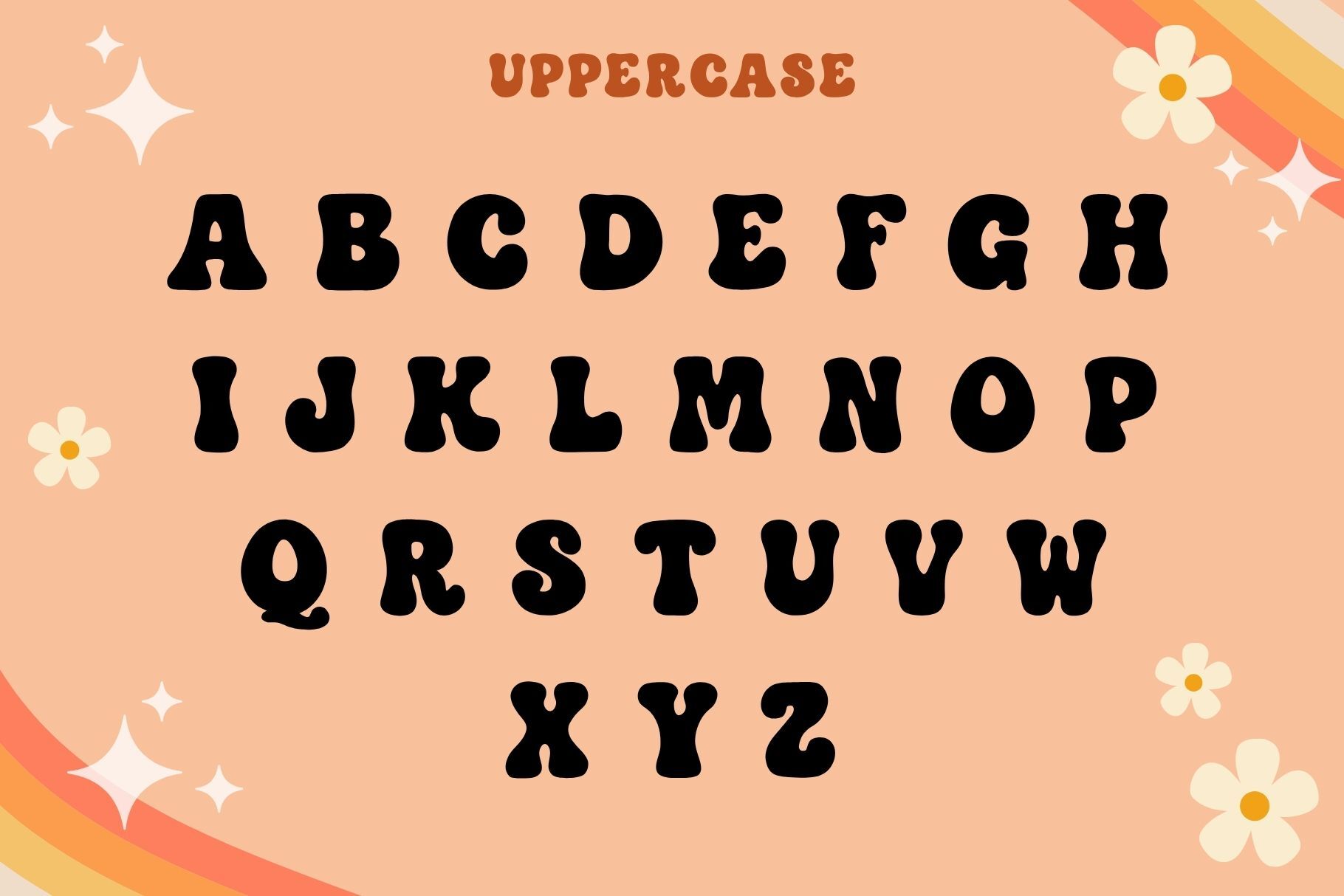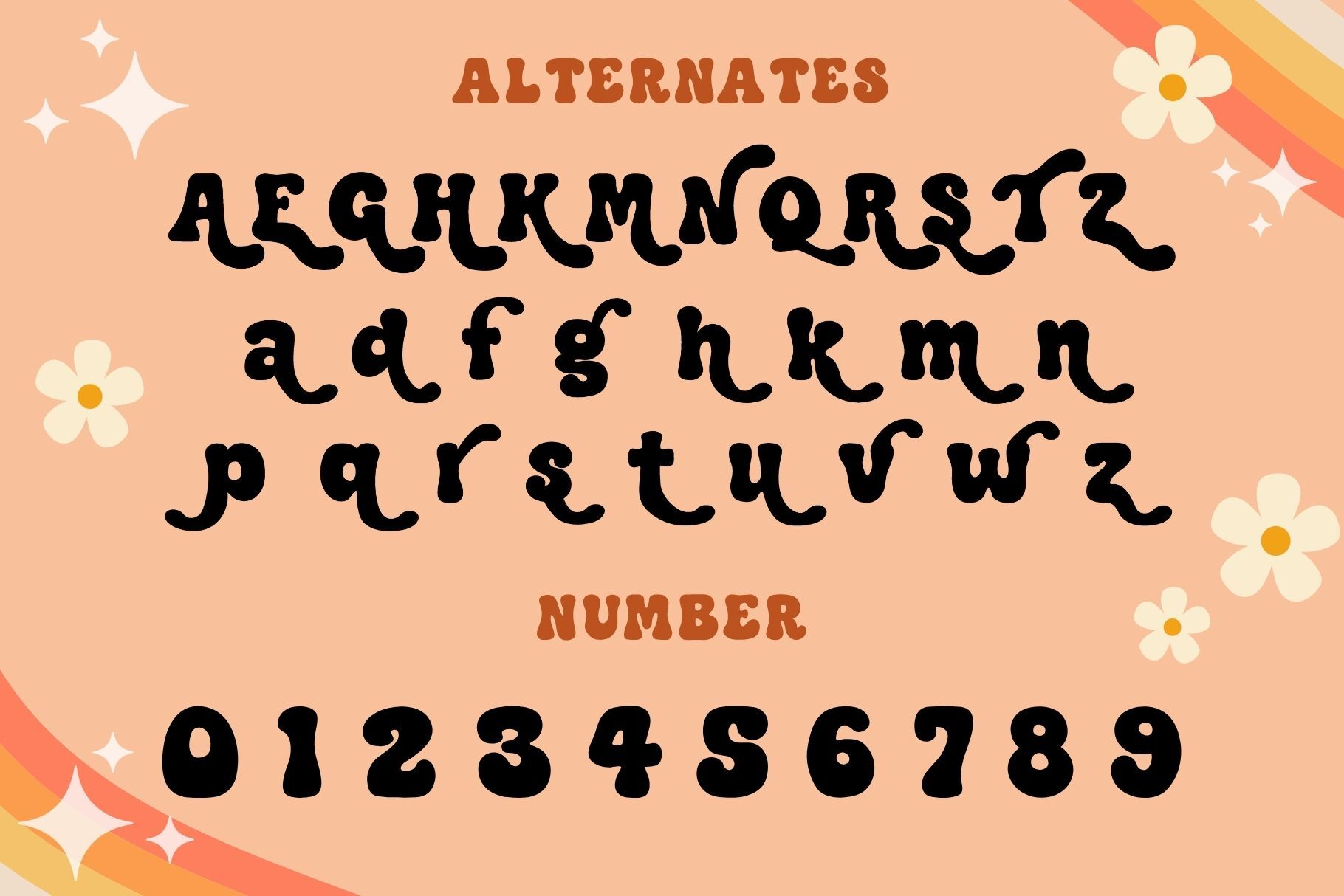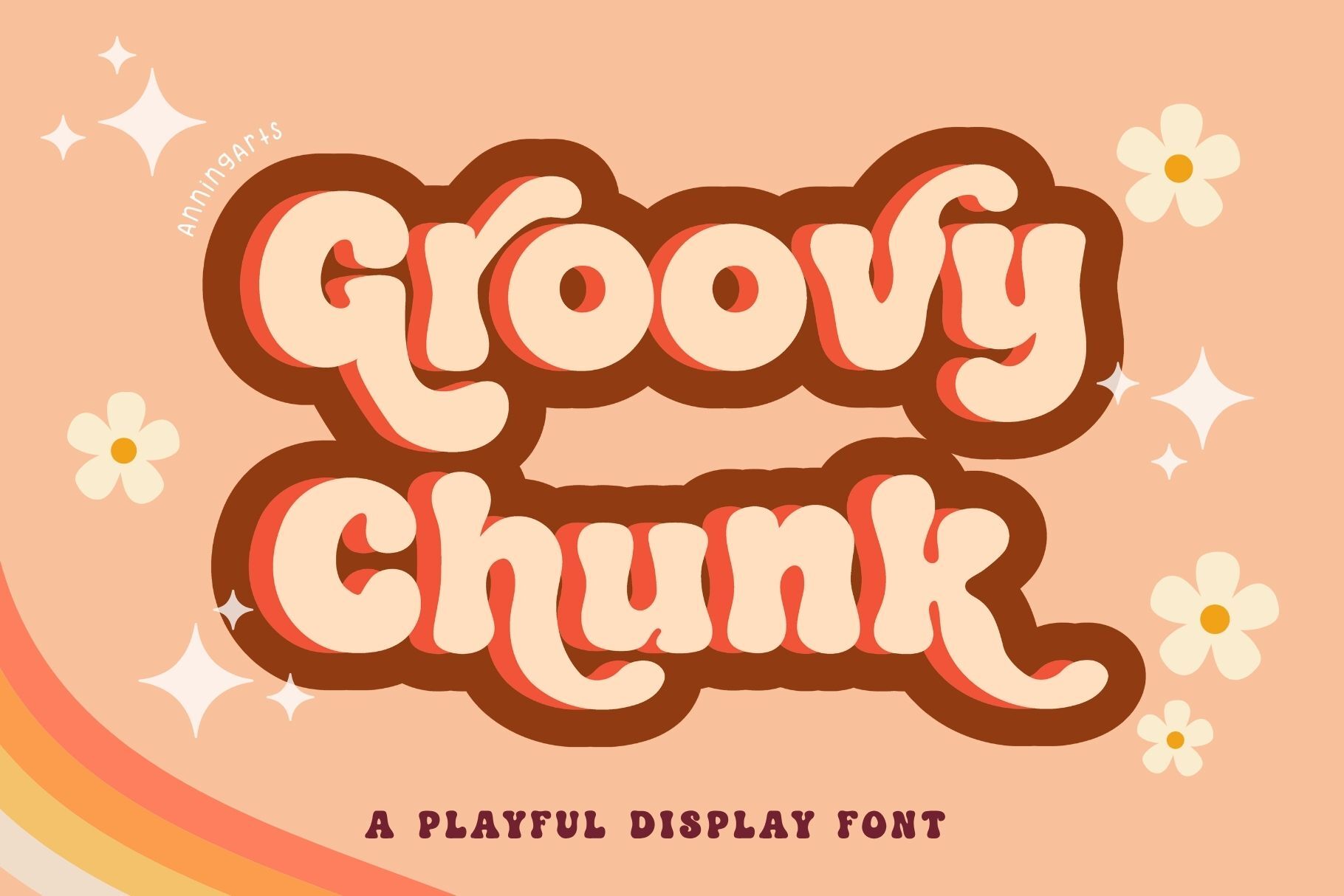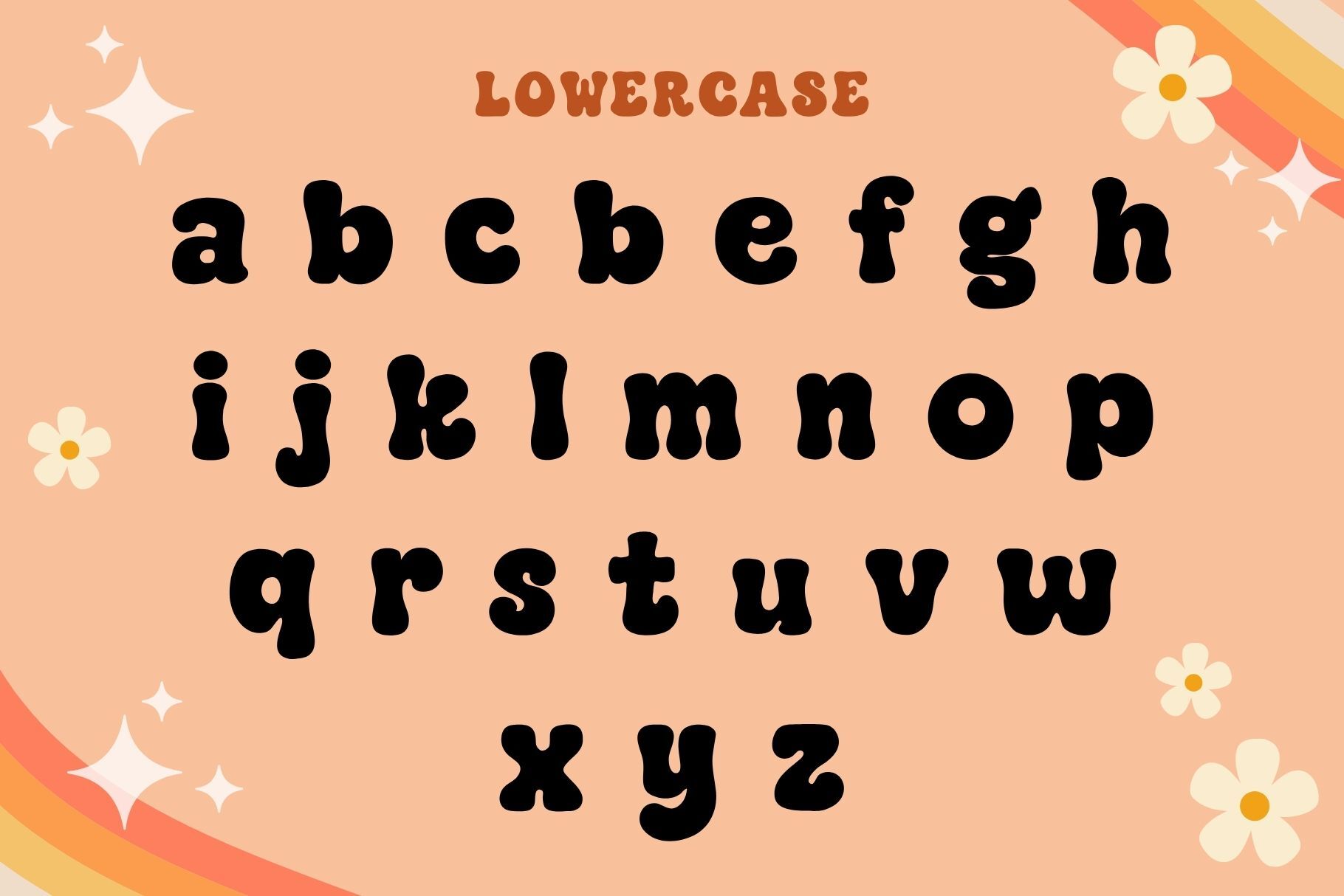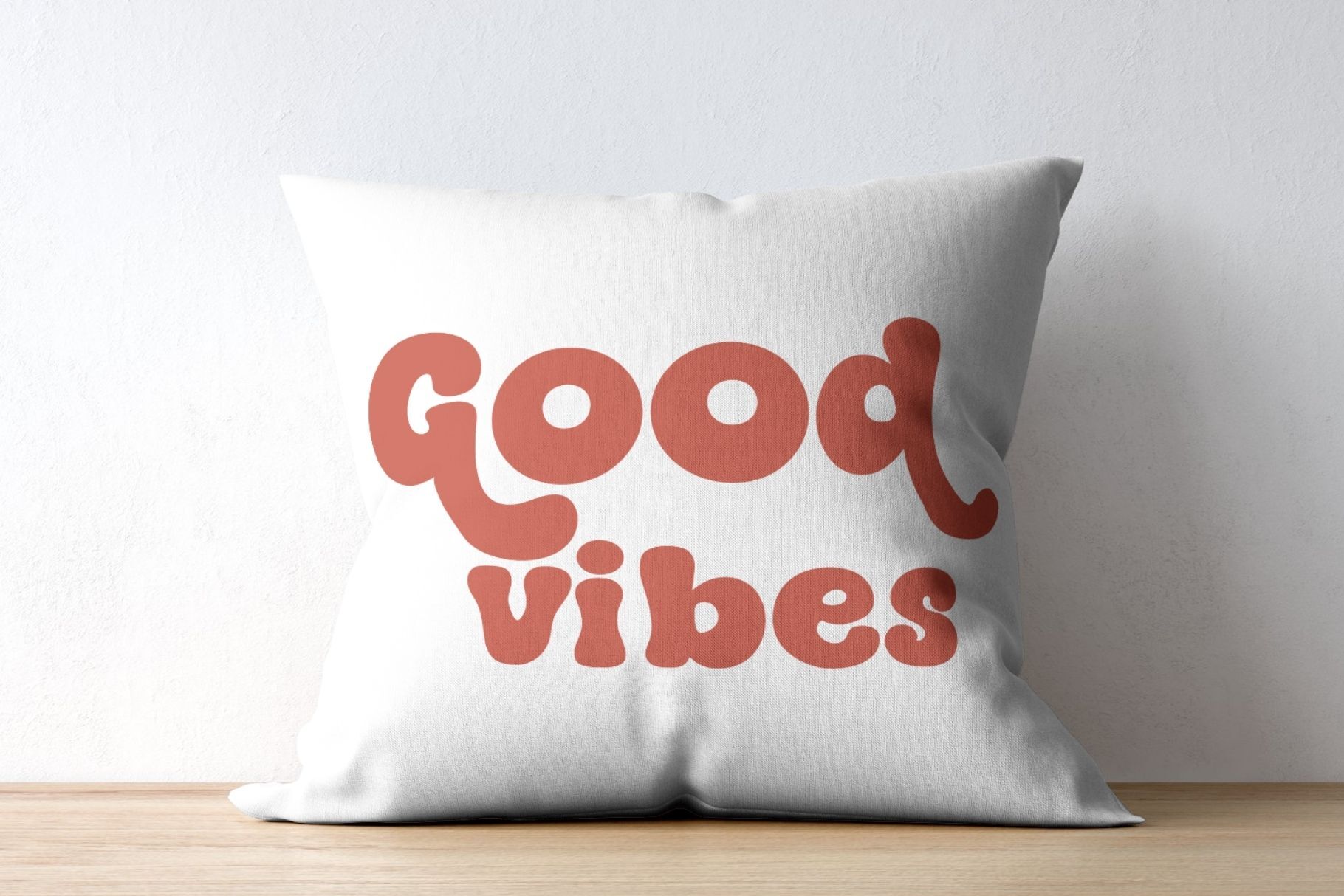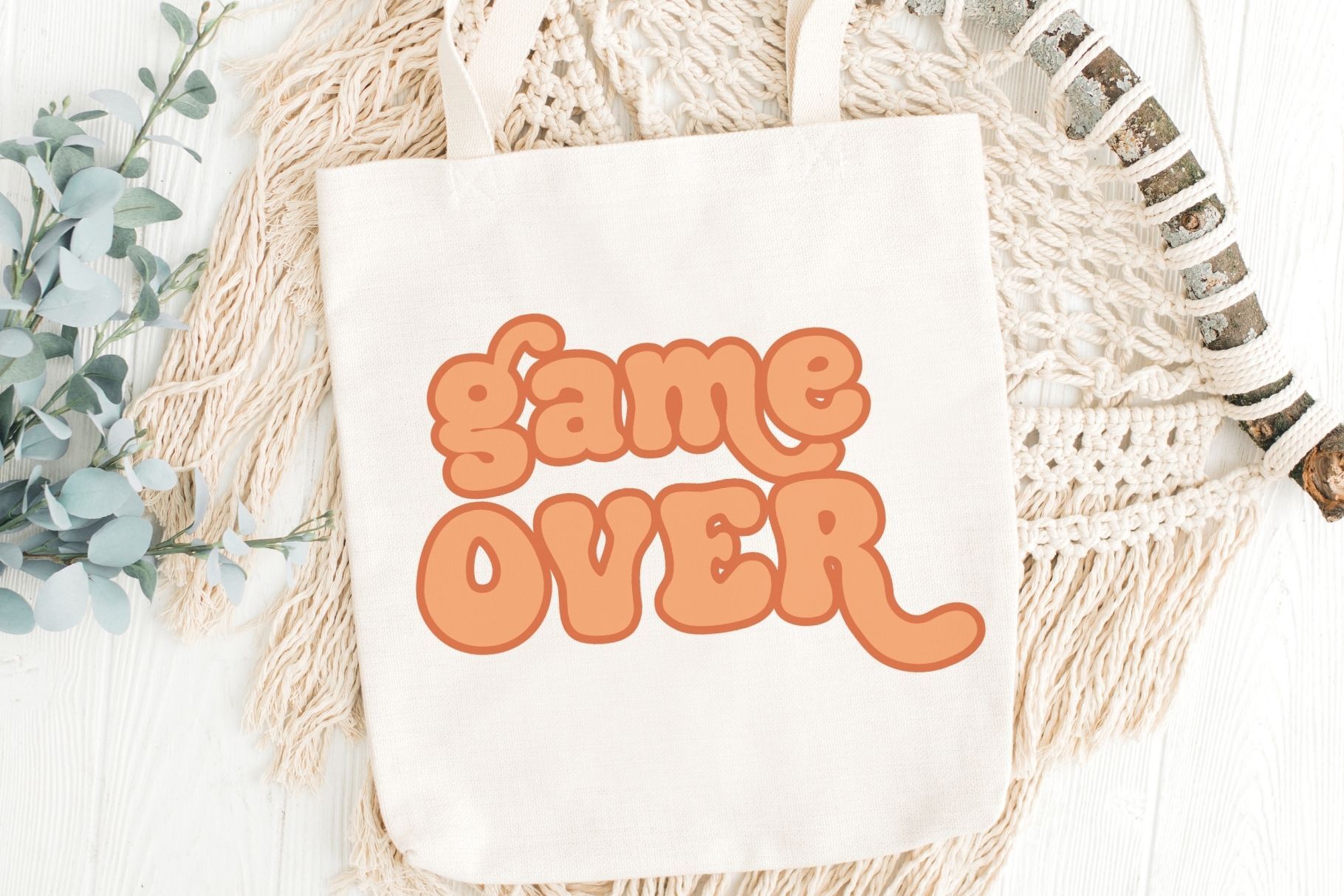
Groovy Chunk - Retro display font
Groovy Chunk is a bold and playful retro display font inspired by the funky vibes of the 70s. This typeface features chunky, bubbly letterforms and whimsical alternate characters, perfect for logos, packaging, apparel, social media, and more.   With fun tail loops and extra character sets, Groovy Chunk is ideal for any project needing a vintage charm and bold personality.